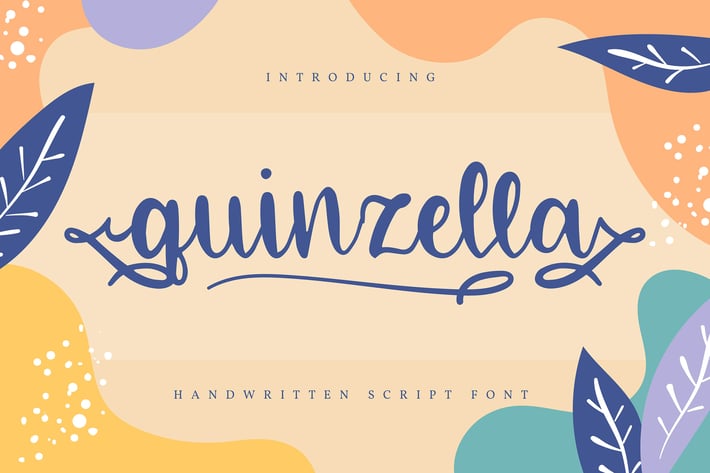
Quinzella | Handwritten Script Font
Quinzella | Handwritten Script Font with a calligraphy style, So beautiful on invitation like greeting cards, branding materials, business cards, quotes, posters, and more!